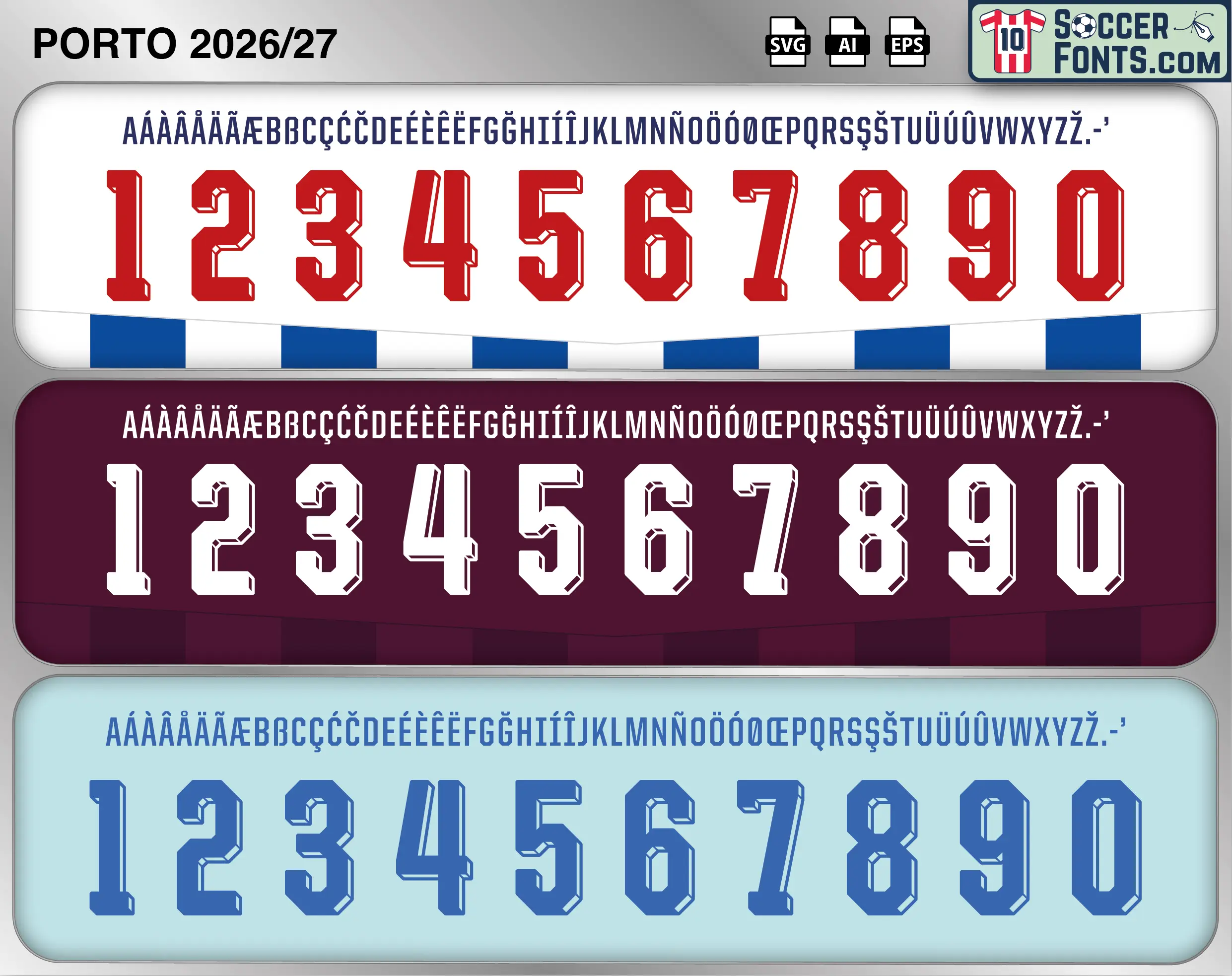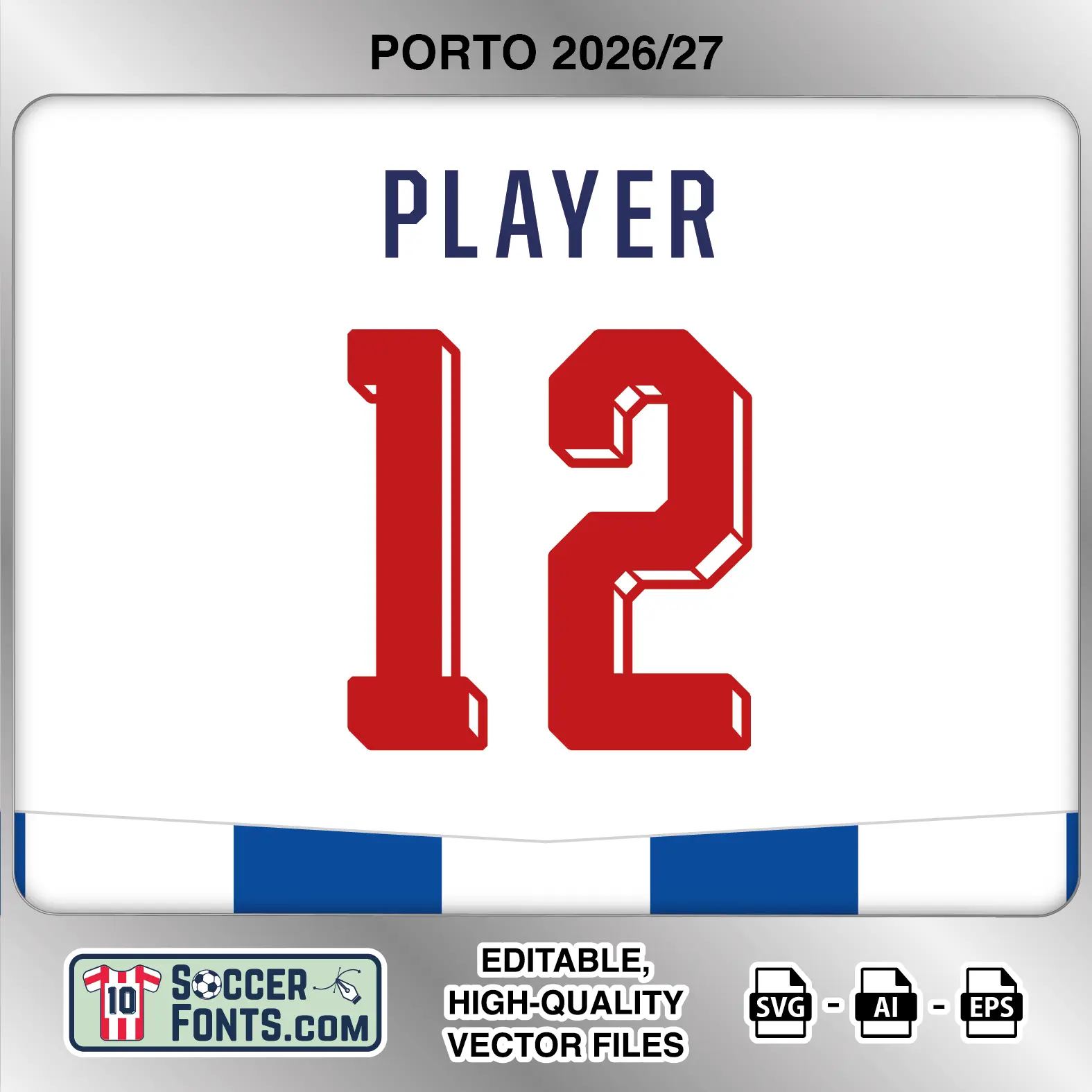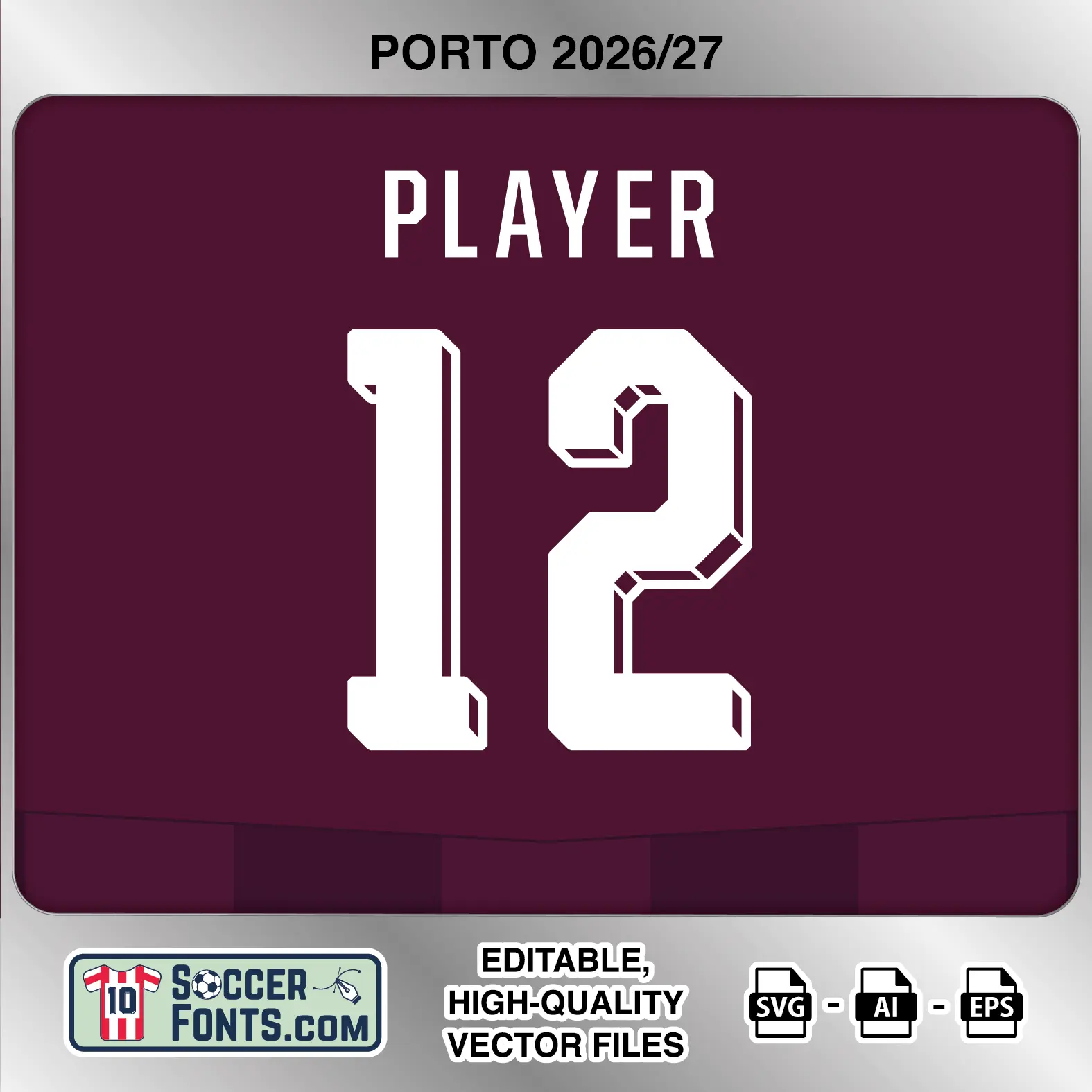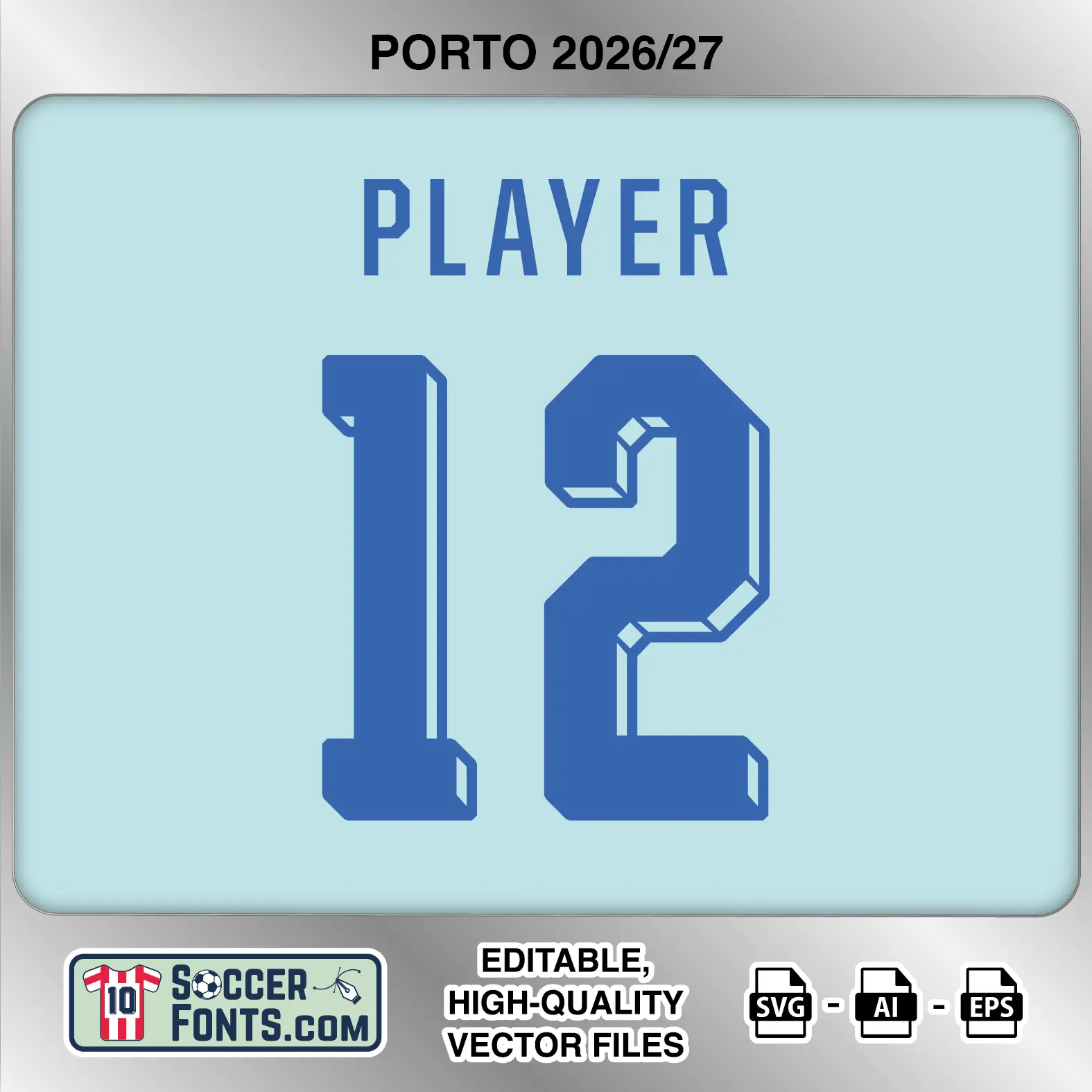
About Porto 2026-27 Font
Download Porto 2026-27 font, an editable soccer jersey lettering design in vector format inspired by the FC Porto kit styles used during the 2026-27 football season. This football font artwork is prepared for football shirt recreations, custom jersey projects, football kit mockups and sports graphic design workflows.
Visual Identity of the Font Design :
The Porto 2026-27 lettering combines a tall, condensed uppercase alphabet with large block-style numbers built around distinctive angular details. The numerals use clipped corners and geometric cuts that create a faceted, three-dimensional appearance without relying on a conventional outer outline. Small inset shapes appear around corners, bends and internal openings, particularly across numbers such as 2, 3, 5, 6, 8, 9 and 0. The number 1 is exceptionally narrow, while the broader figures retain the same squared construction and beveled visual language. Three color treatments are shown across the kit set: red numbers with dark navy names on the white-and-blue version, white lettering and numbers against the deep burgundy treatment, and medium blue lettering and numbers on the pale blue version. The alphabet also includes an extensive selection of accented uppercase characters for international player names.
Context of 2026-27 Season for Porto :
FC Porto entered the 2026-27 campaign as defending Portuguese champions after winning the Primeira Liga in 2025-26. Francesco Farioli remained in charge at the Estádio do Dragão, with the Italian coach continuing the project that had returned the club to the top of Portuguese football. The Porto 2026-27 Font belongs to this title-defending period and accompanies a new collection of shirts across domestic and European competition.
Porto began the league season strongly, recording victories over Alverca, Rio Ave, Arouca and Académico de Viseu during August. Diogo Costa continued as captain, while players such as Gabri Veiga, Pepê, William Gomes and Victor Froholdt featured in the evolving squad. The club also began the campaign by adding another trophy to its collection with victory in the Portuguese Super Cup.
For shirt collectors and football design projects, the Porto 2026-27 Font represents a season shaped by the challenge of defending the Portuguese championship. The Porto 2026-27 Font brings the distinctive 2026-27 lettering identity into editable form for recreating the different FC Porto kit treatments from this campaign.
Porto 2026-27 football shirt font showing alphabet letters and jersey numbers
Porto 2026-27 Font